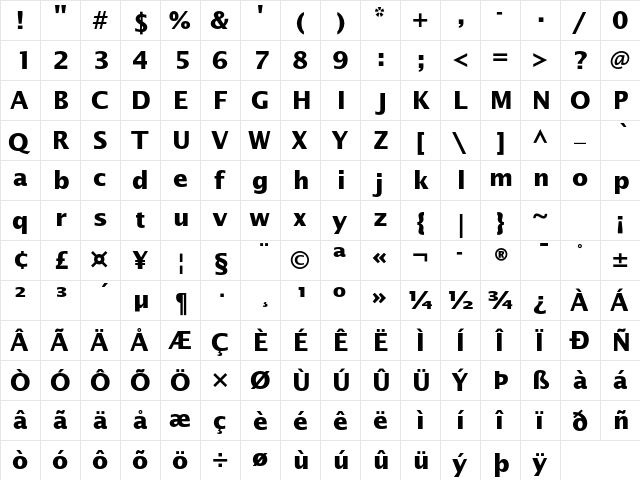
Lucida Sans Std Bold
| Designer | Kris Holmes, Charles Bigelow |
Design Context for Lucida Sans Std Typeface
Lucida Sans Std takes a measured approach to typography — its balanced proportions and neutral character make it a reliable workhorse for both digital and print work. The heavy weight commands attention and anchors typographic hierarchies.